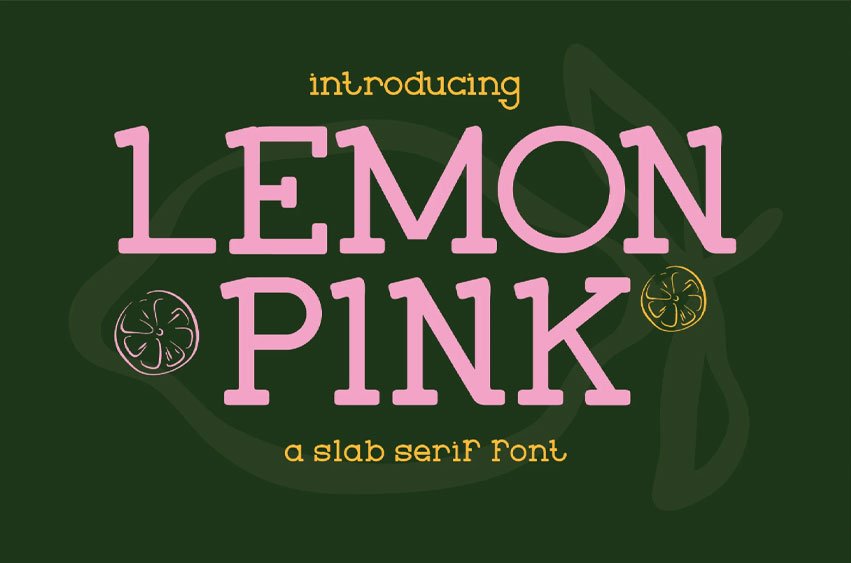
Lemonpink Font
Lemonpink Font is a playful and bubbly font that combines sweetness with fresh energy. With rounded letterforms, soft strokes, and a gentle bounce, it radiates charm and positivity, making it perfect for designs that aim to feel cheerful and approachable.
Ideal for branding, packaging, children’s products, and social media graphics, Lemon Pink brings a fun, youthful, and friendly vibe that instantly captures attention while remaining easy to read.